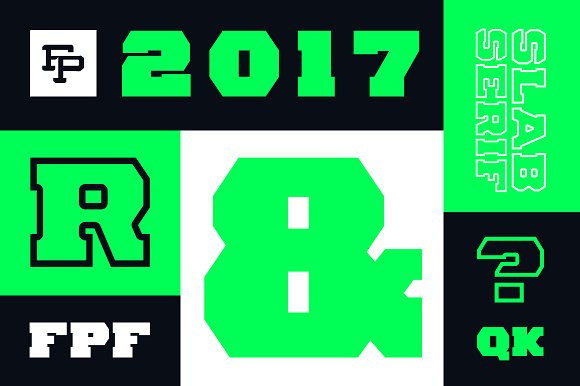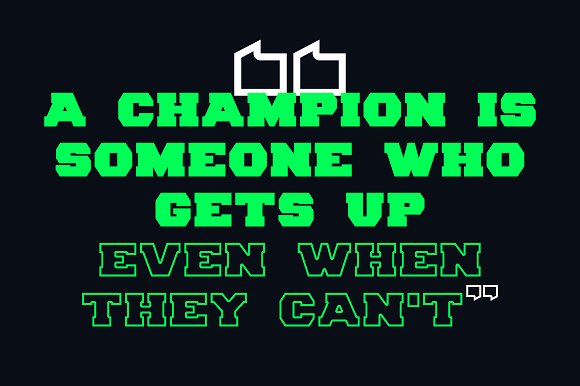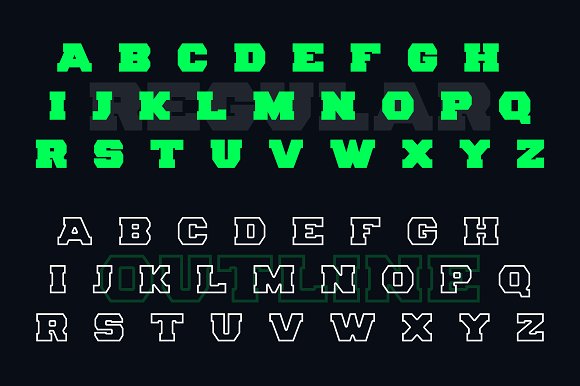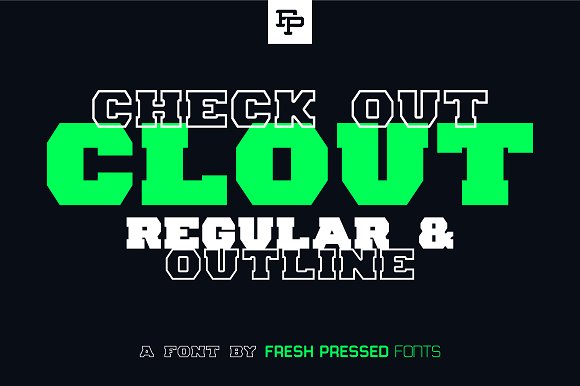
Clout Display Font
Clout is an all new Slab Serif typeface from Fresh Pressed Fonts!
Clout was designed with a sports influence, but is definitely not limited to just that genre. It can be used in all kinds of ways as a strong and bold display font. With two styles, Regular & Outline, it’s perfect to either stand out or take a supporting role in your designs.